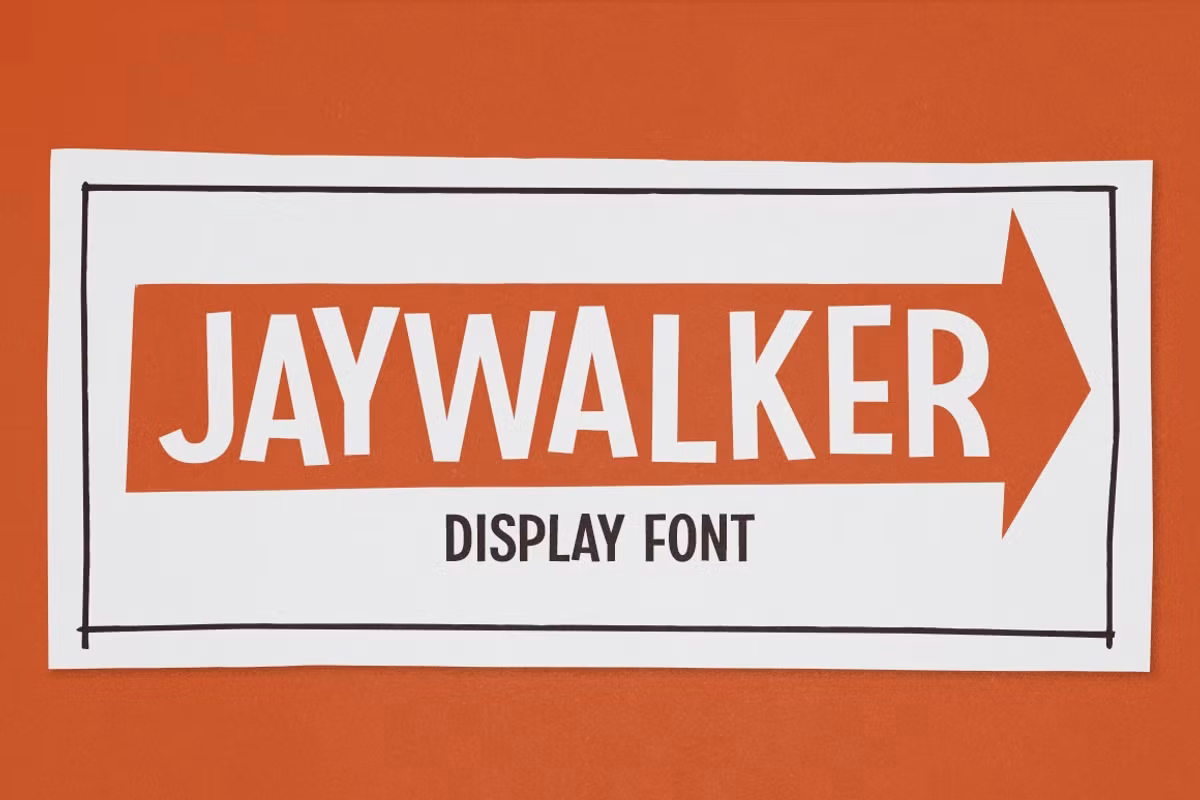
Jaywalker Display Font Free Download is a bold, edgy typeface designed to stand out with confidence and modern style. Featuring sharp angles, geometric lines, and a slightly rebellious attitude, Jaywalker is perfect for posters, streetwear branding, music artwork, headlines, and anything that demands strong visual presence.
Its distinctive letterforms give Jaywalker Display Font Free Download a unique and memorable look, making it an excellent choice for designers who want to push creative boundaries. Whether used for print or digital media, it delivers high impact while maintaining clean readability.